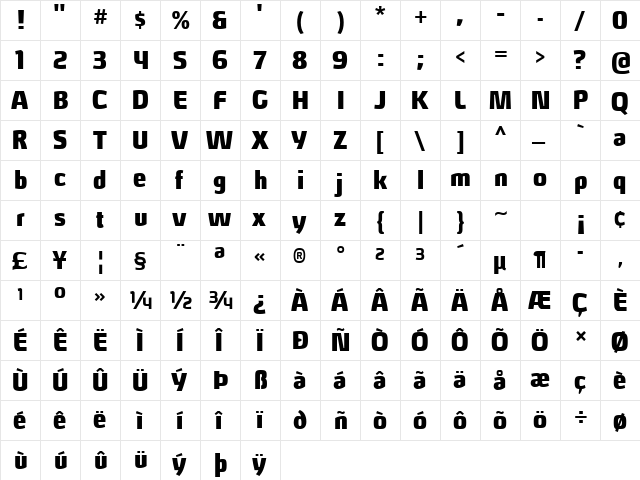
Hybrea UltraBlack Regular
Design Context for Hybrea UltraBlack Typeface
Hybrea UltraBlack takes a measured approach to typography — its balanced proportions and neutral character make it a reliable workhorse for both digital and print work.